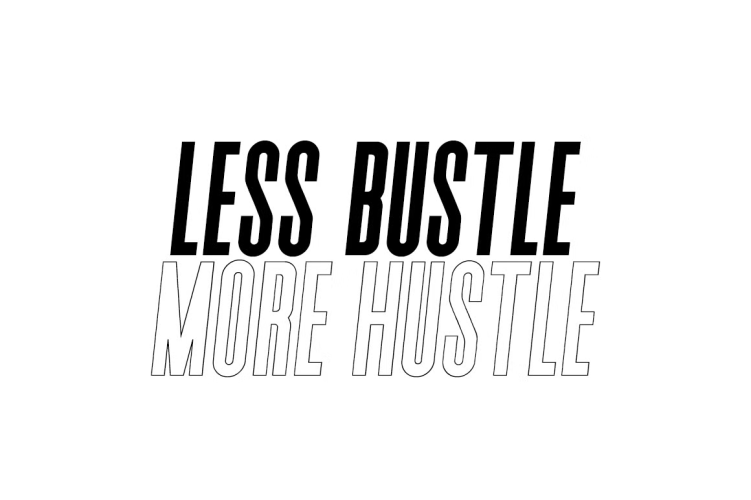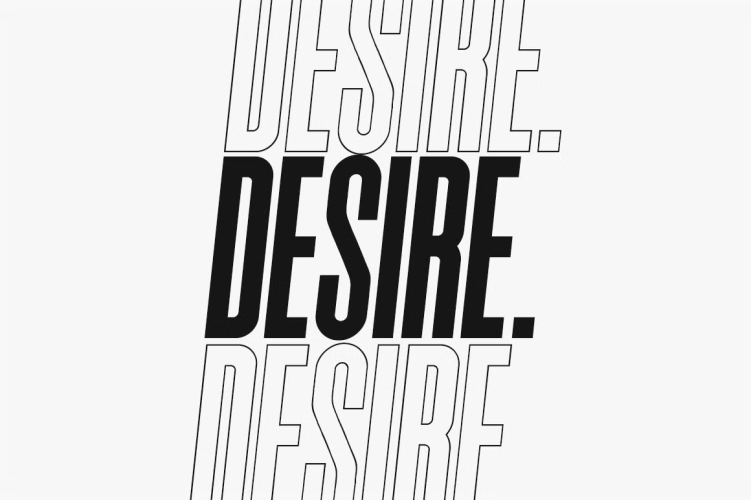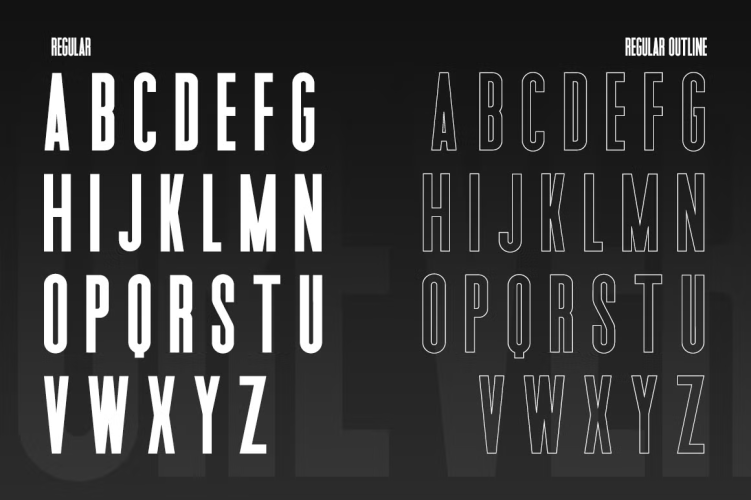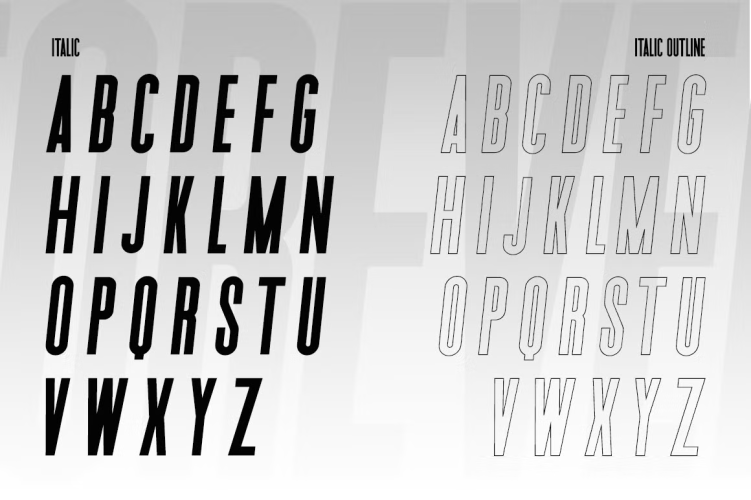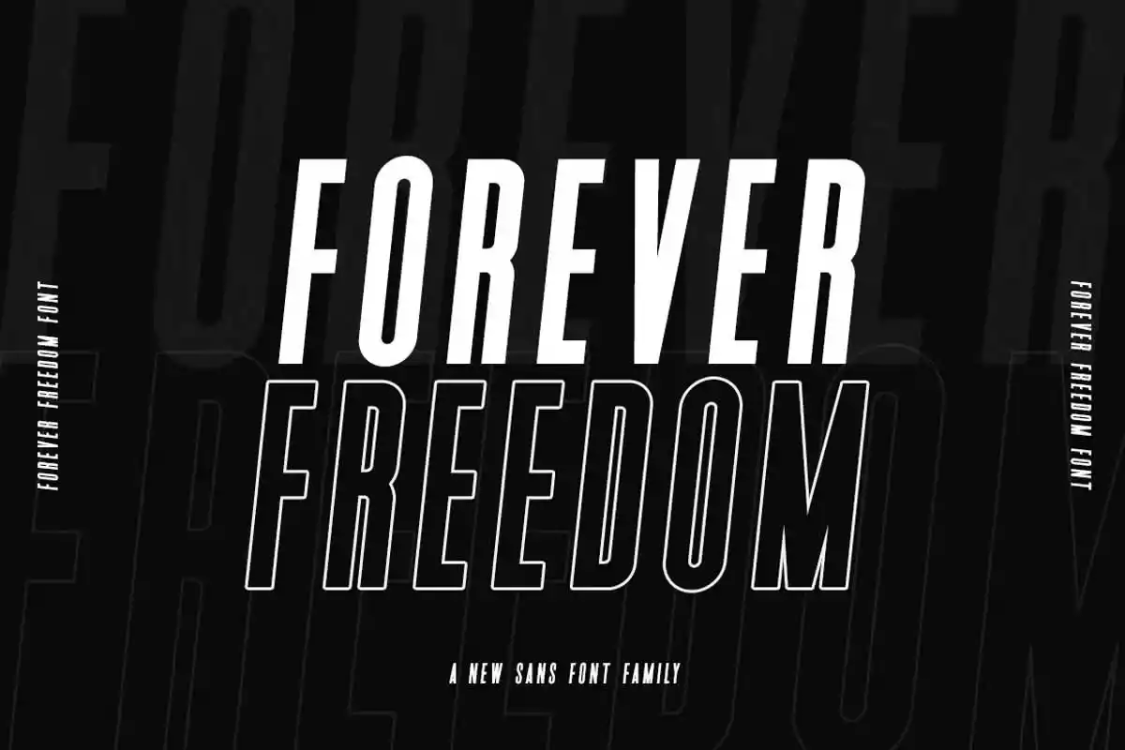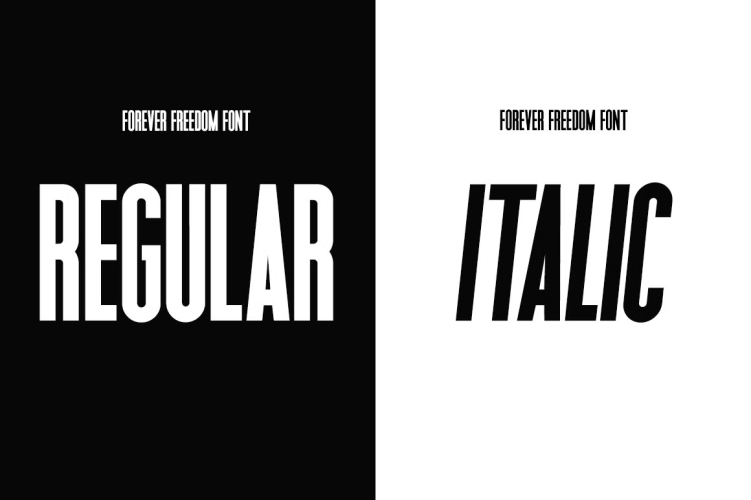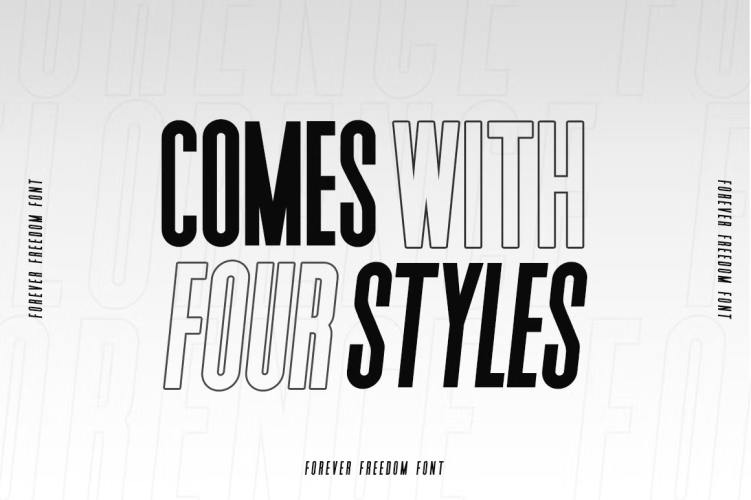
Forever Freedom Font
Our new font is here! Forever Freedom is a bold and striking modern font with four fantastic styles that combine perfectly. The regular, italic, and outline versions are excellent ways to spice up your design cohesively. Enjoy!
Forever Freedom Font is a Sans Serif Fonts font that brings a professional and versatile look to your projects. Our new font is here! Forever Freedom is a bold and striking modern font with four fantastic styles that combine perfectly.